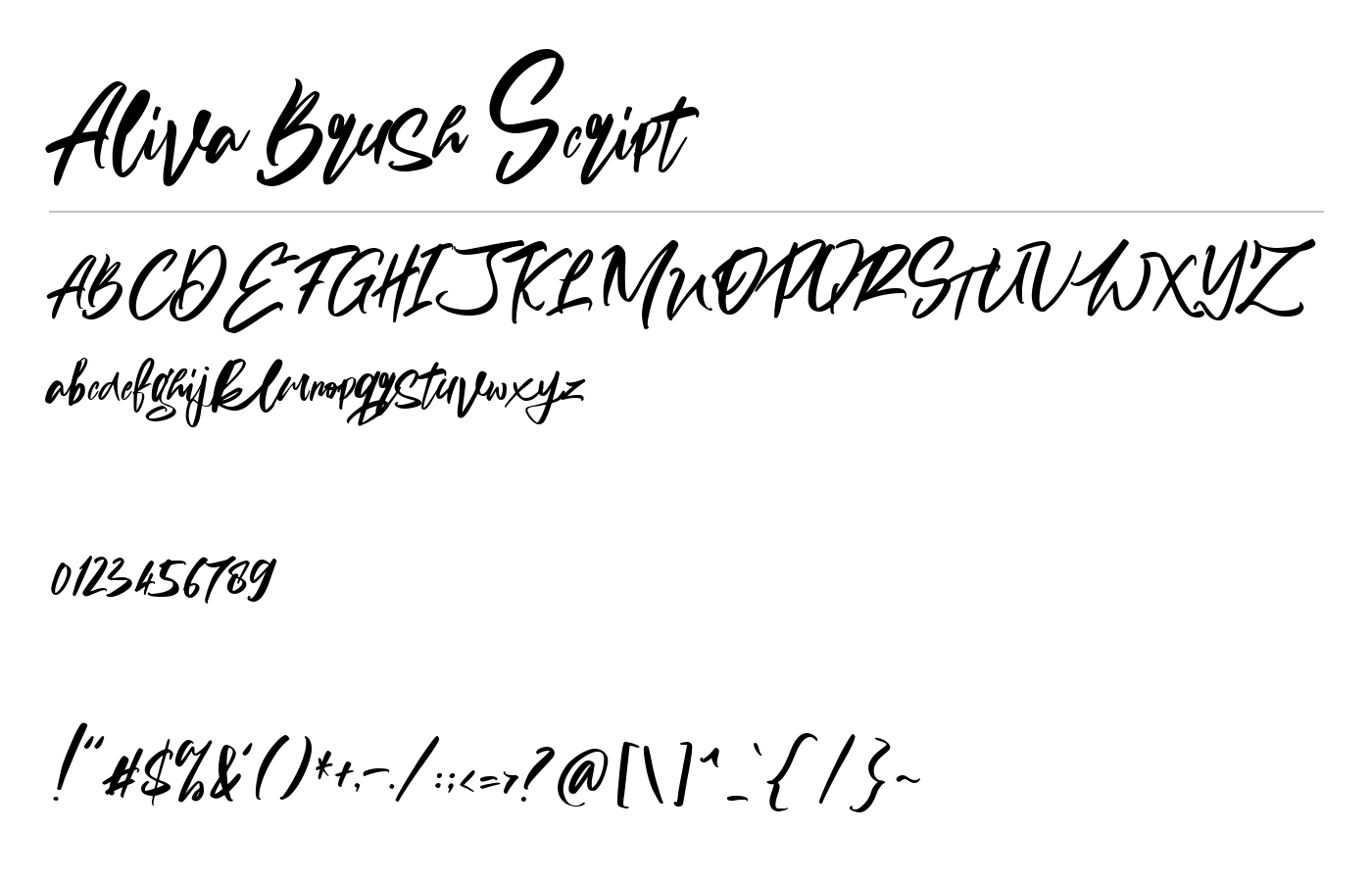
Aliva Brush Script is a lively, handwritten brush script font characterized by its fluid, casual strokes and moderate contrast between thick and thin lines. It features a natural, slightly irregular flow that evokes a personal, artistic touch, making it perfect for creative branding, invitations, and expressive headlines. This font works well in designs aiming to convey warmth, individuality, and an energetic yet approachable style.
Aliva Brush Script Font
About Aliva Brush Script Font